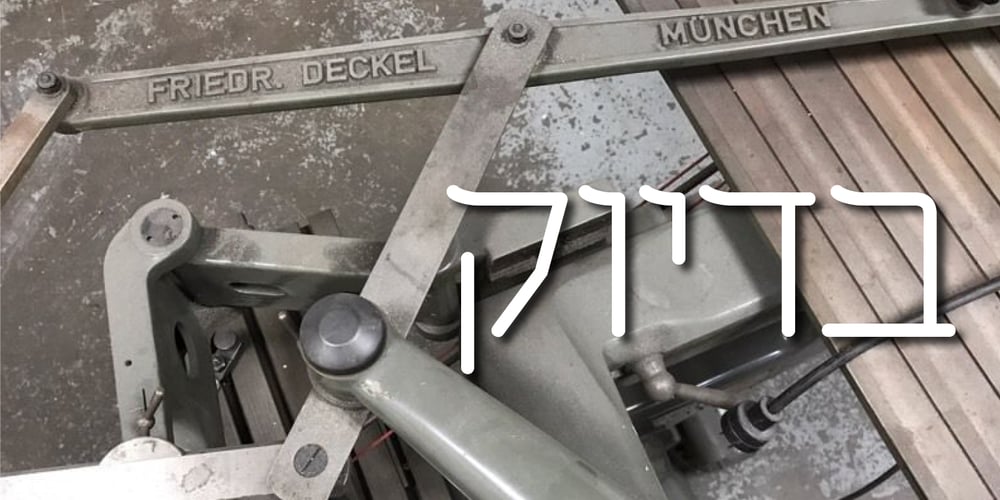
Salame MF
Salame MF font
Salame MF Font Family was designed by Zvika Rosenberg and published by Masterfont. Salame MF contains 4 styles and family package options. Revival of metal type metrics used in the old days to engrave in the signage industry.